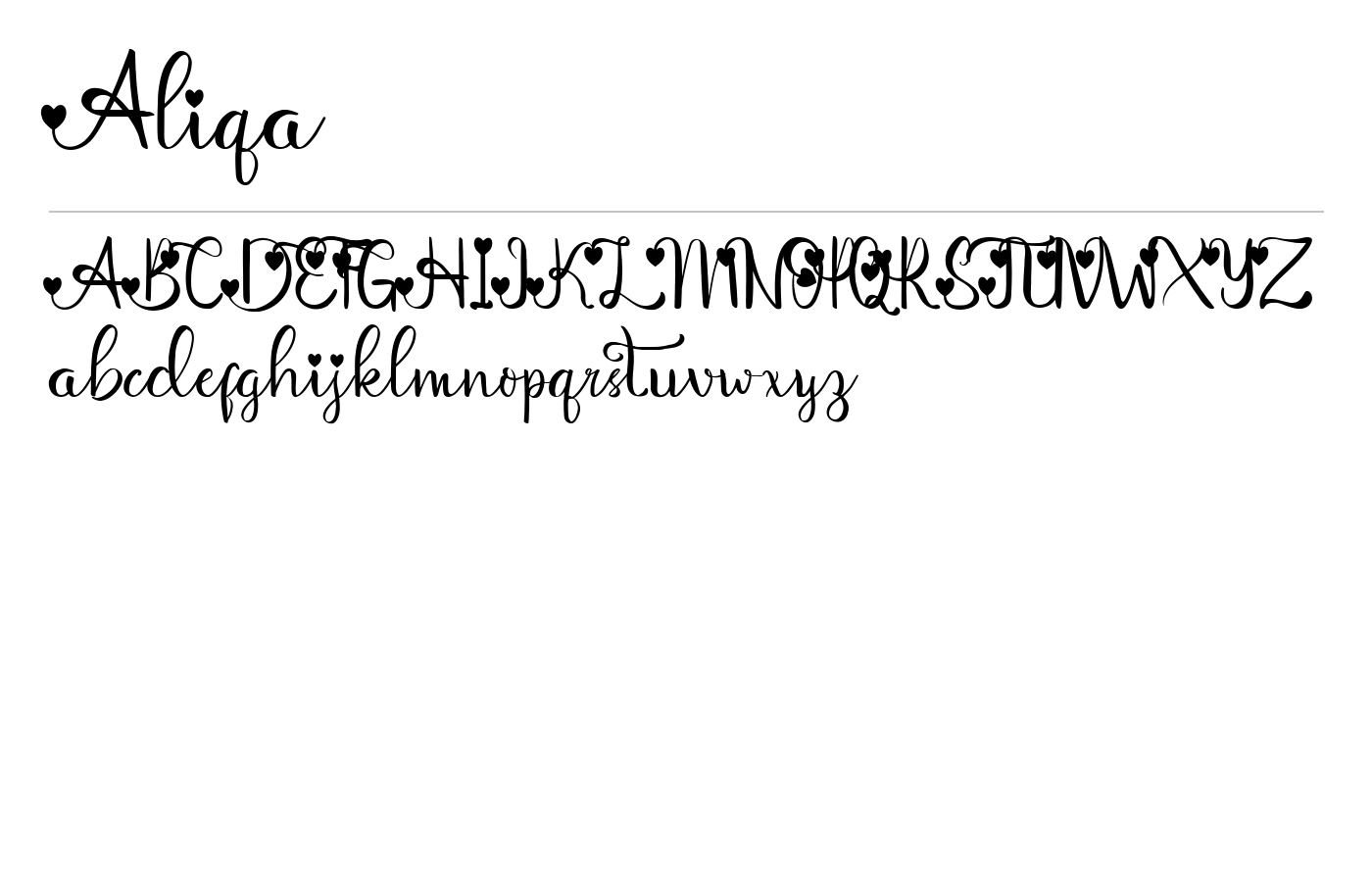
Aliqa is a playful and elegant script font featuring whimsical hearts integrated into its flowing uppercase letters, adding a charming and romantic touch. Its delicate strokes and smooth curves create a friendly, stylish vibe perfect for wedding invitations, greeting cards, and feminine branding that seeks to convey warmth and creativity. This font works best in decorative settings where its unique personality can shine.
Aliqa Font
About Aliqa Font
| Font family | Aliqa Font |
| Designer | Tio Yulianto |